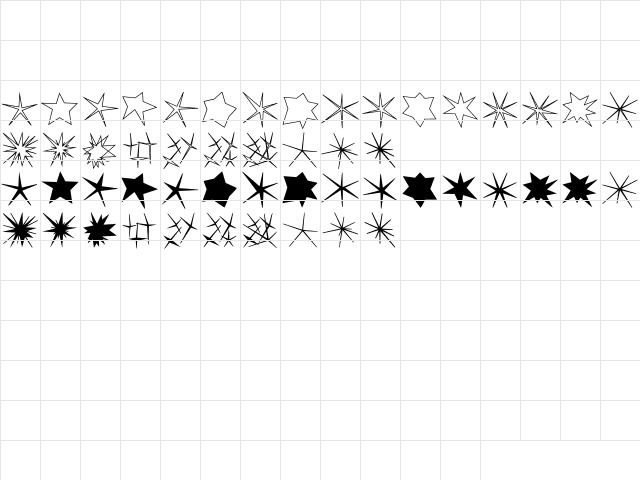
dt Regular
dt Family
dt Regular
Design Context for dt
dt is a composed and adaptable typeface that performs quietly and consistently across a wide range of design contexts.